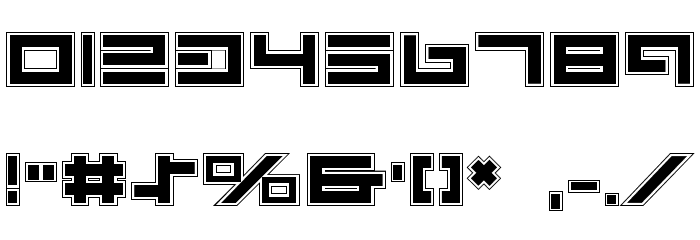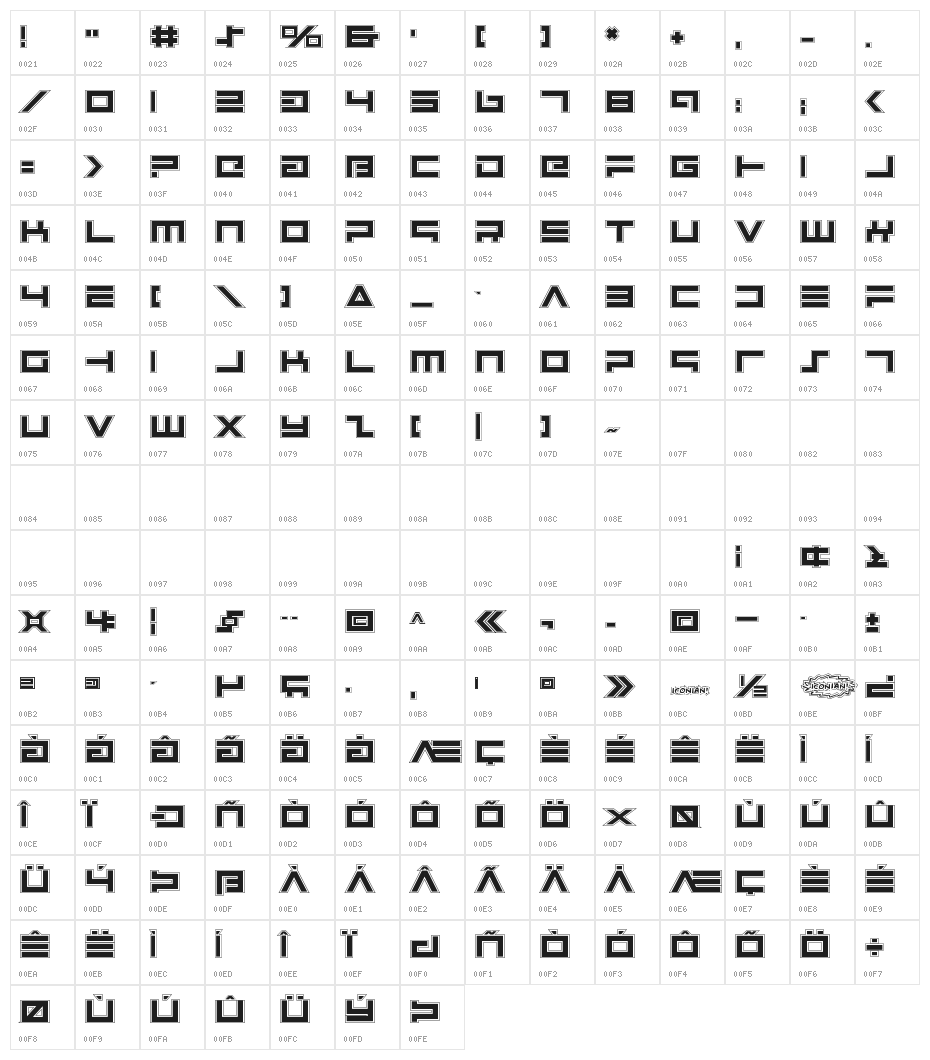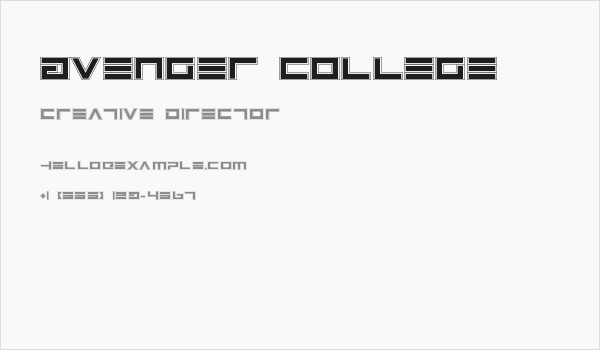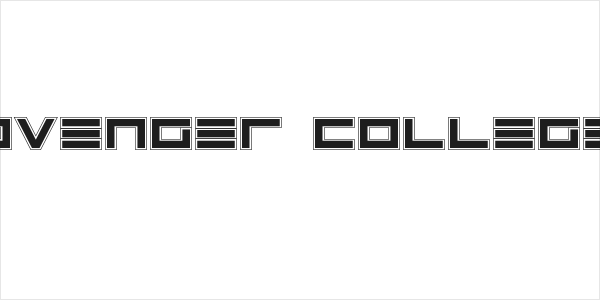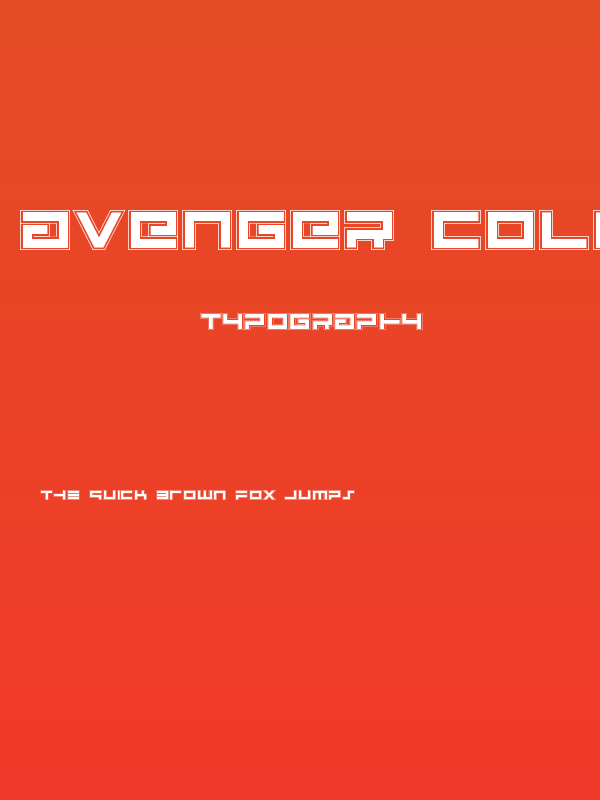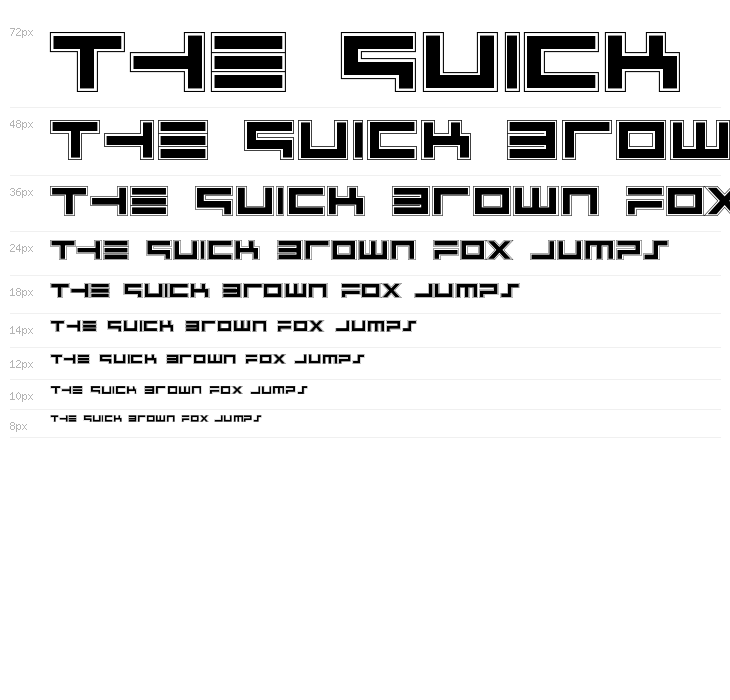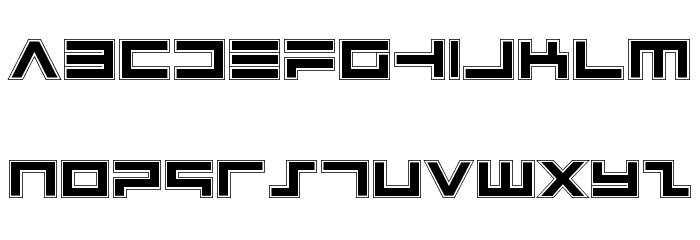
Avenger College Font
This font features a bold, geometric design with a strong emphasis on angular shapes and sharp edges. The characters are outlined, creating a striking contrast between the inner and outer spaces. The uppercase and lowercase letters maintain a consistent style, with a futuristic and tech-inspired aesthetic. Numbers and special characters follow the same design principles, ensuring uniformity across all glyphs. The font's distinct appearance makes it ideal for projects that require a modern and edgy look.
A bold, geometric font with angular shapes and a futuristic style.
• Proposed Projects: Ideal for video game titles, tech logos, sci-fi posters, and modern branding projects.